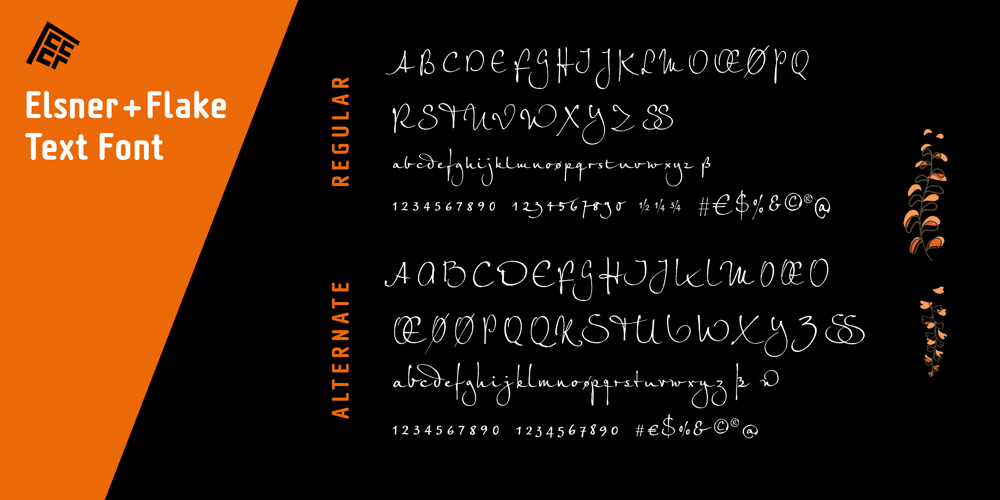
Petras Script EF Font Family was designed by Günther Flake, Petra Beiße and published by Elsner+Flake. Petras Script EF contains 2 styles and family package options. Petras Script, the first digital script font created by the calligrapher Petra Beiße, has, for many years, met with worldwide success. Now the font is complemented with an alternate character set, which gives designers more flexibility and adds a personal touch to the font. Petra Beiße has resided for a long time in Wiesbaden, Germany, where she is working as a renowned calligrapher. It is rare that any of her scripts are transferred into digital format and sold worldwide as fonts. Because Petras Script became such a huge success, she decided to release Casanova Script Pro.